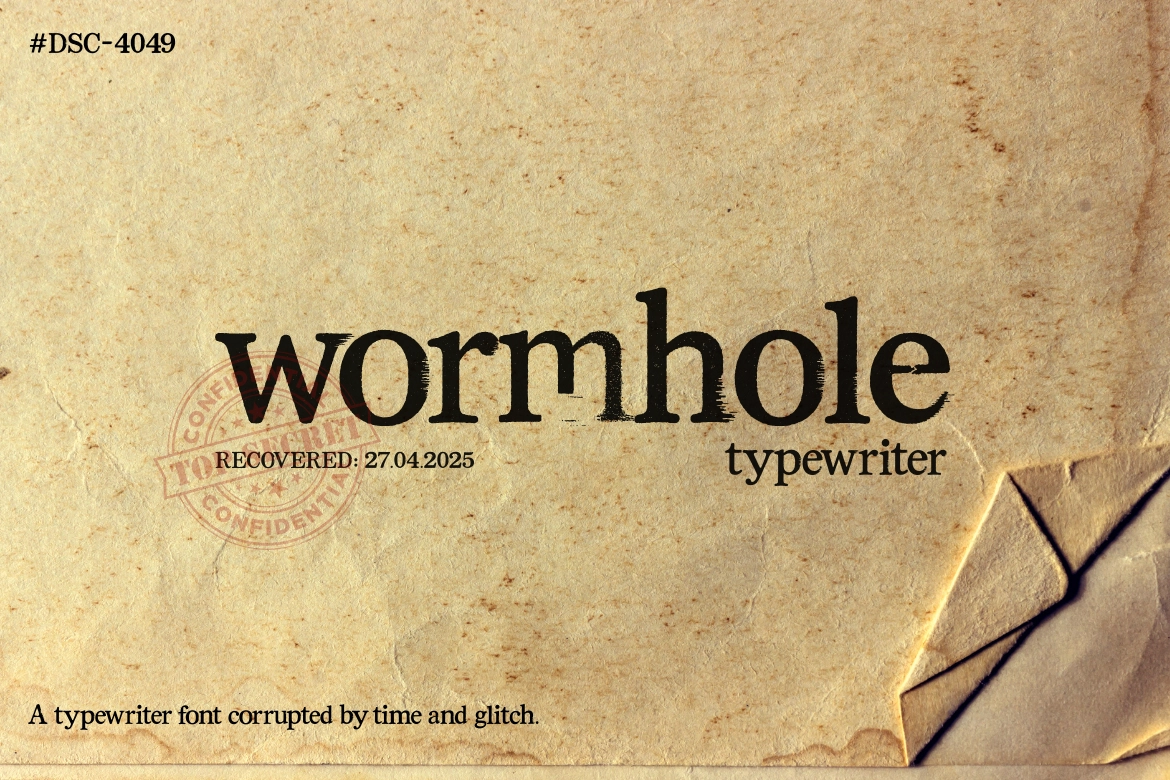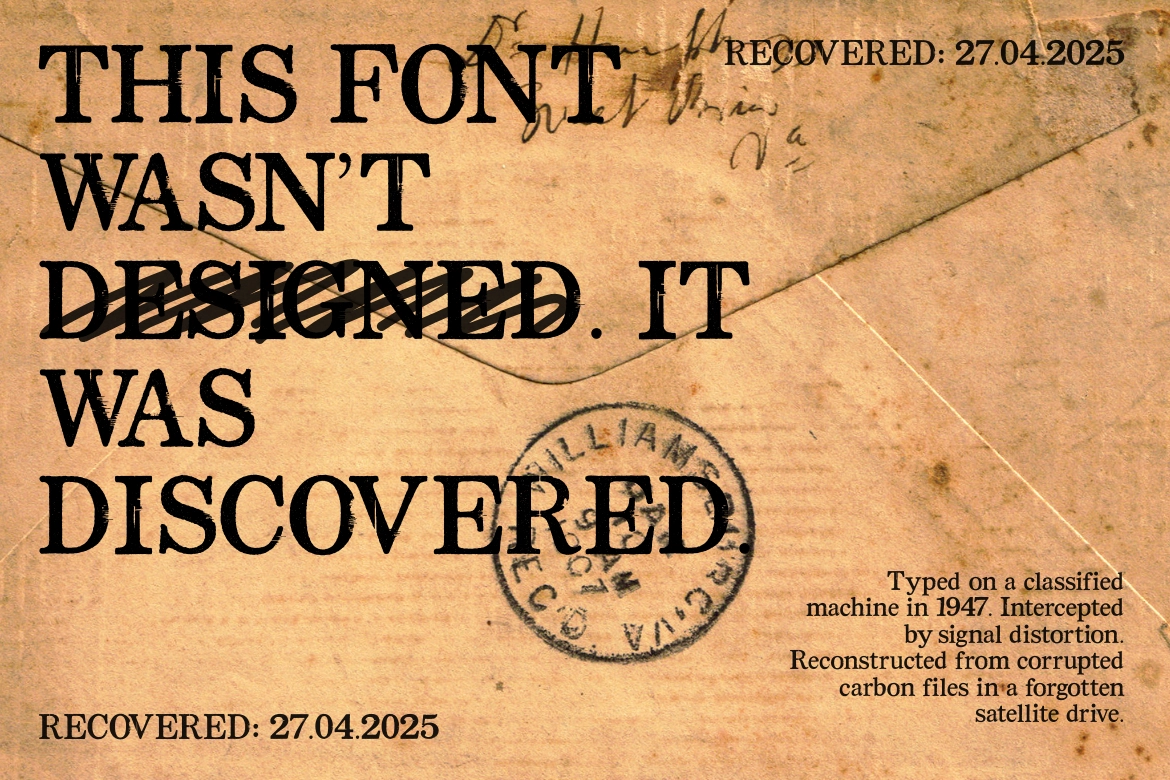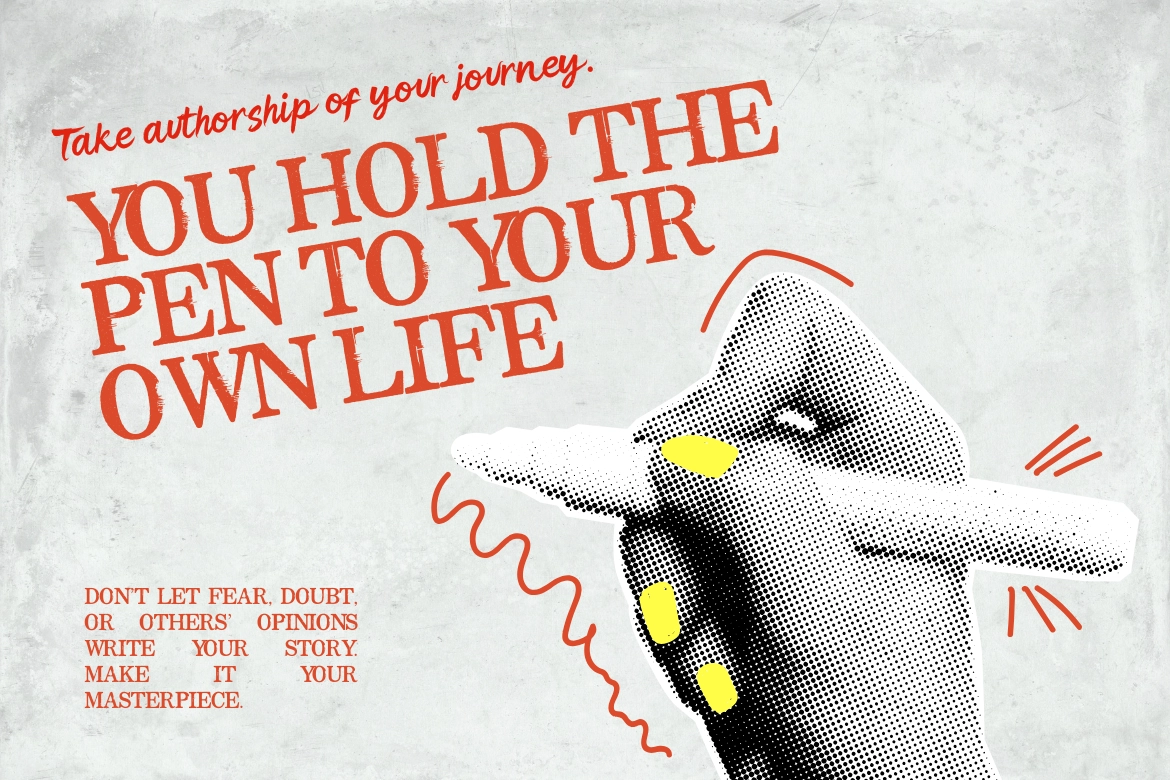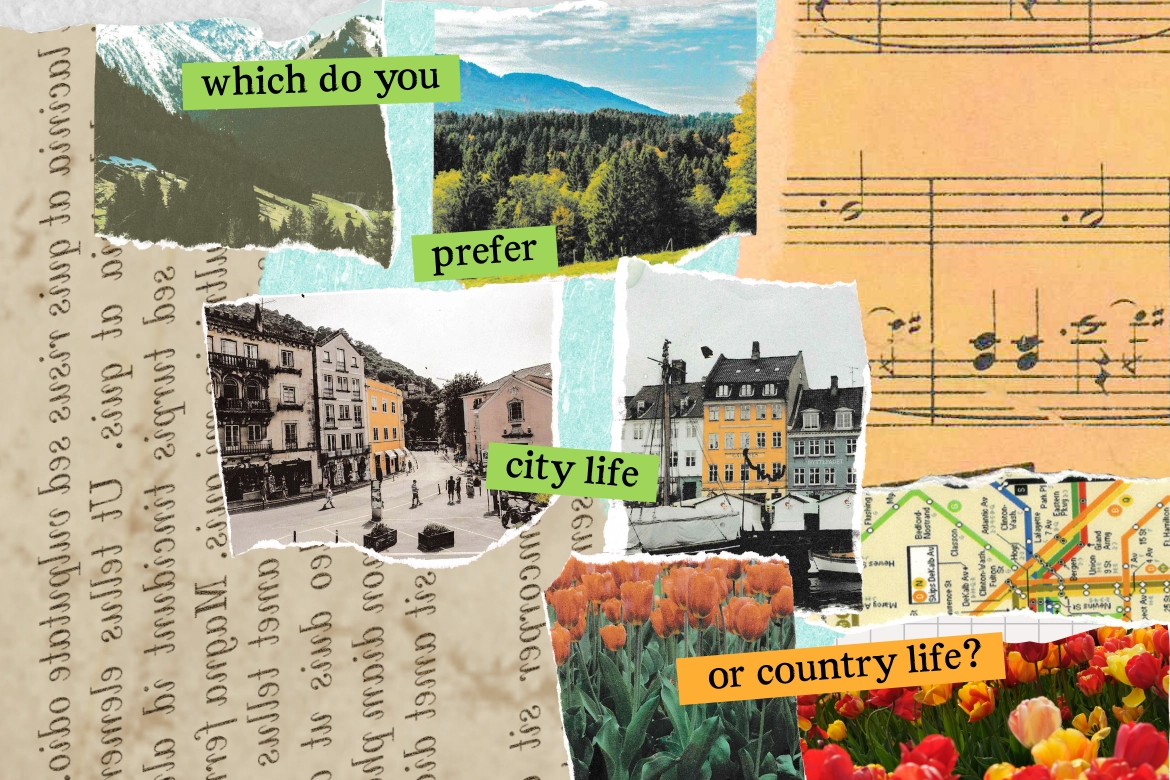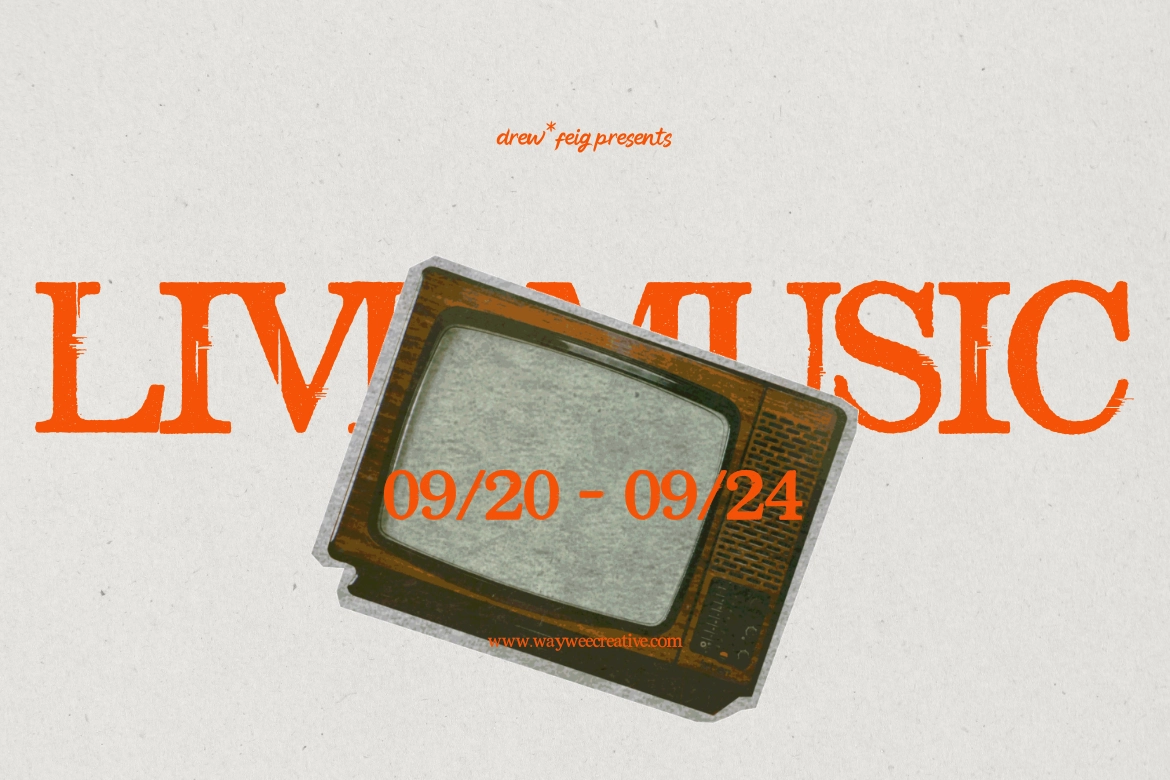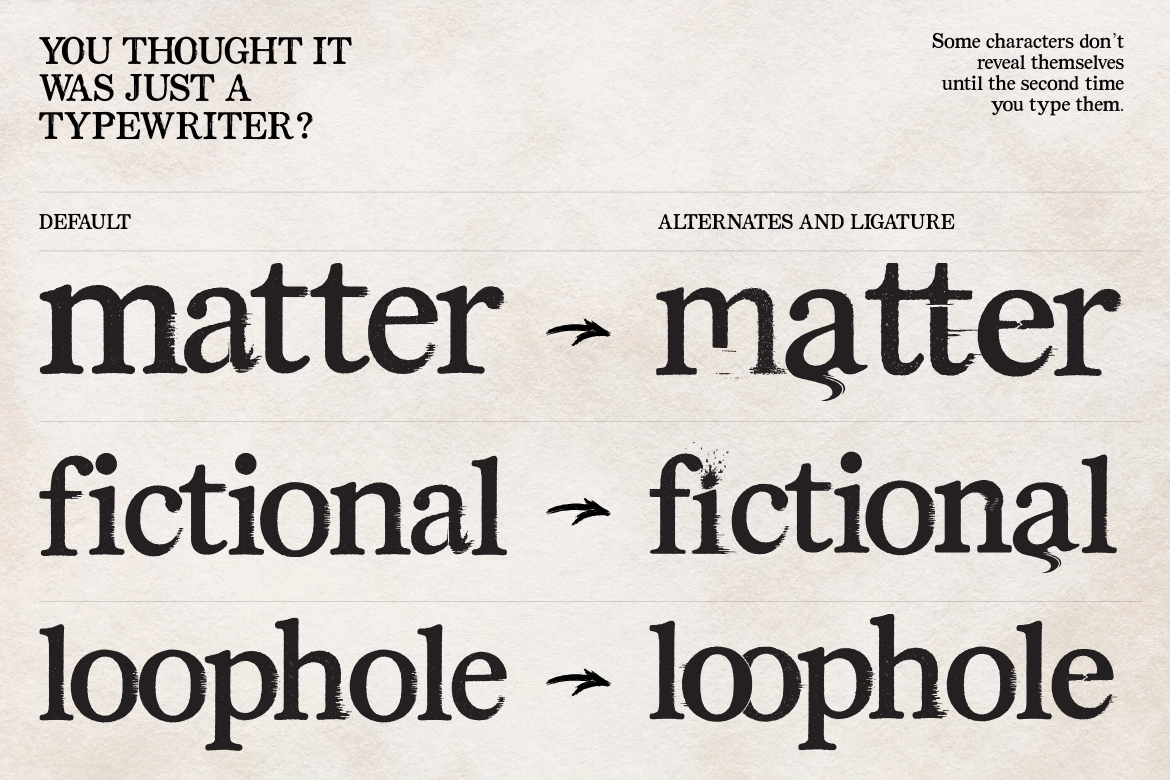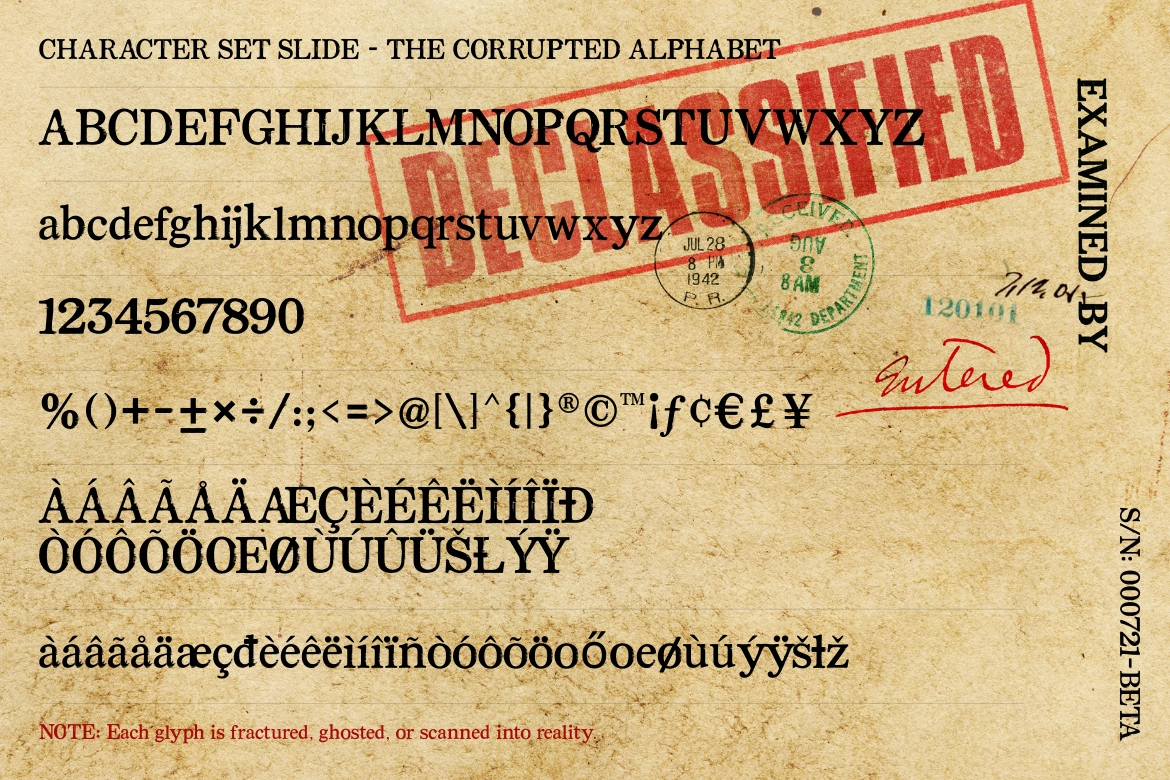
Wormhole Type – Glitch Font
Wormhole Type
Step into the digital void with Wormhole Type, a bold glitch display font that bends time, space, and typography.
Inspired by cyber aesthetics and distorted sci-fi visuals, Wormhole Type captures the essence of digital chaos and futuristic rebellion. With its fragmented strokes, sharp geometry, and high-tech rhythm, this typeface is built for designs that dare to break the grid.
Perfect for posters, album covers, gaming interfaces, and experimental branding — this font adds intensity and motion to every word.
- Uppercase & lowercase
- Alternate glitch variations
- Sci-fi posters & titles
- Cyberpunk branding
- Music & tech visuals
- Game interfaces
- Futuristic typography projects